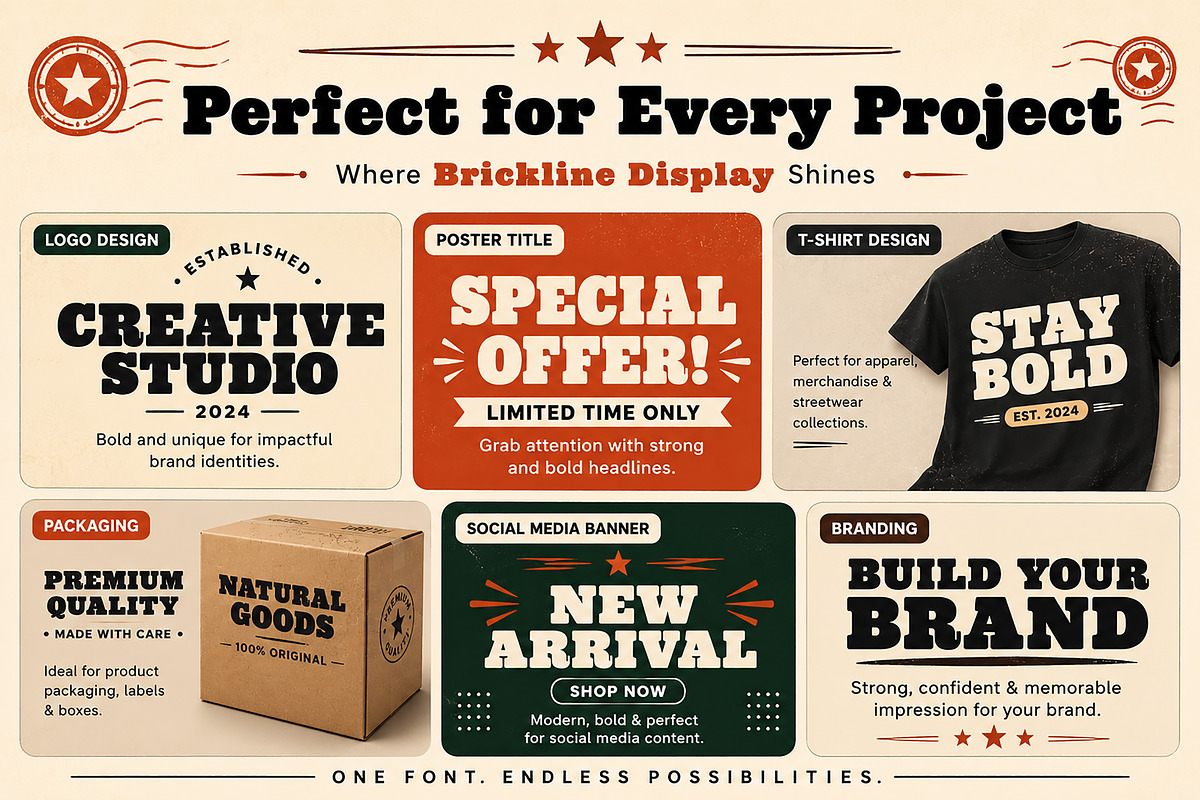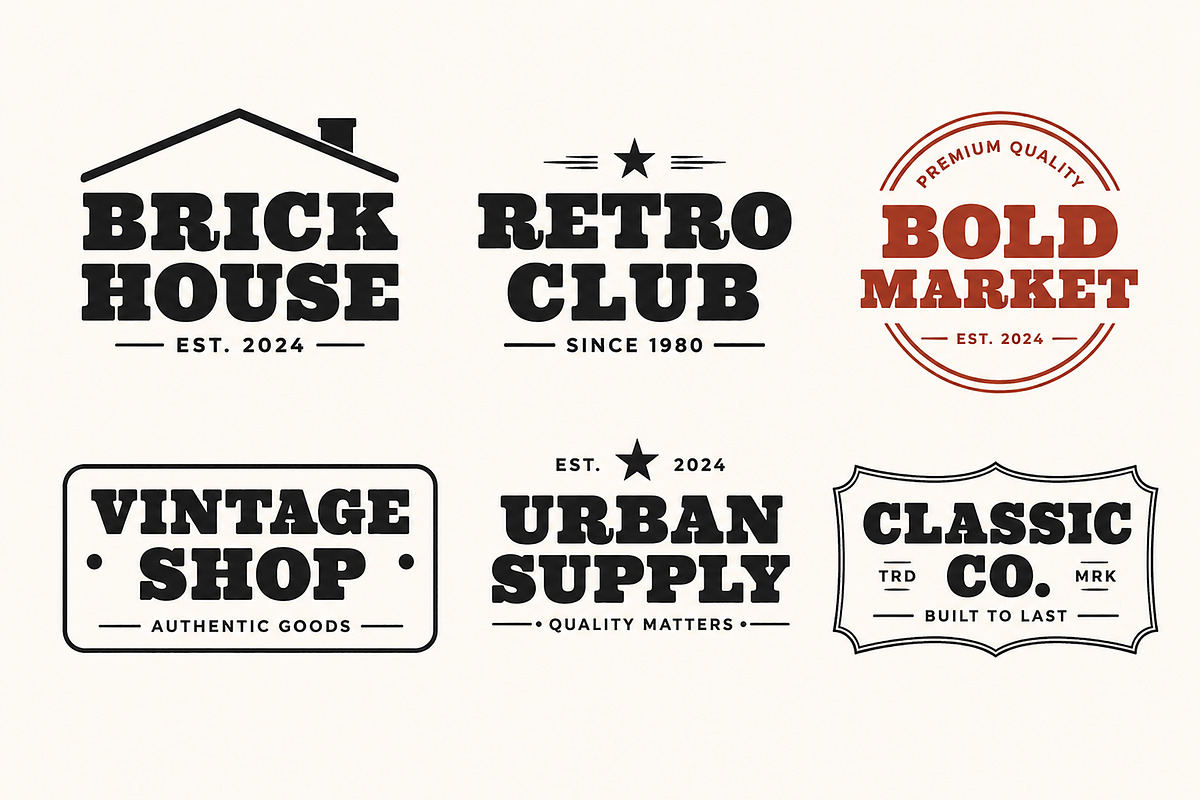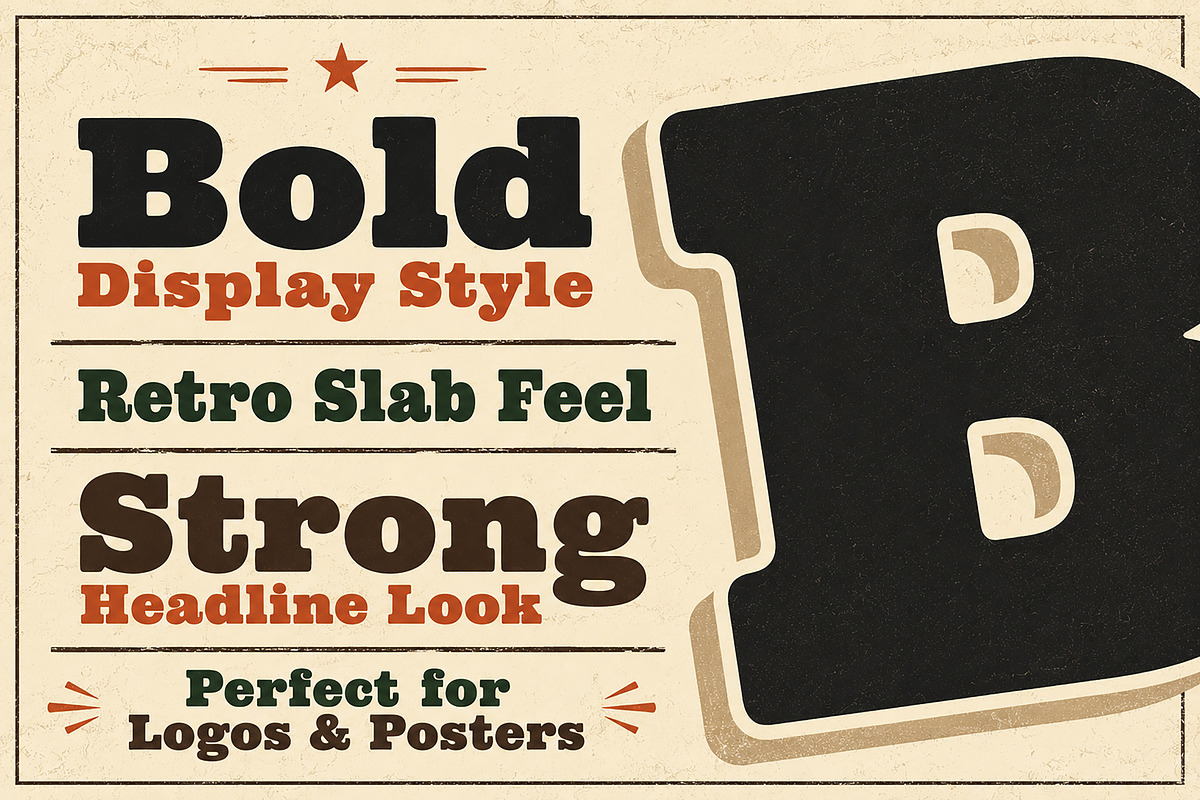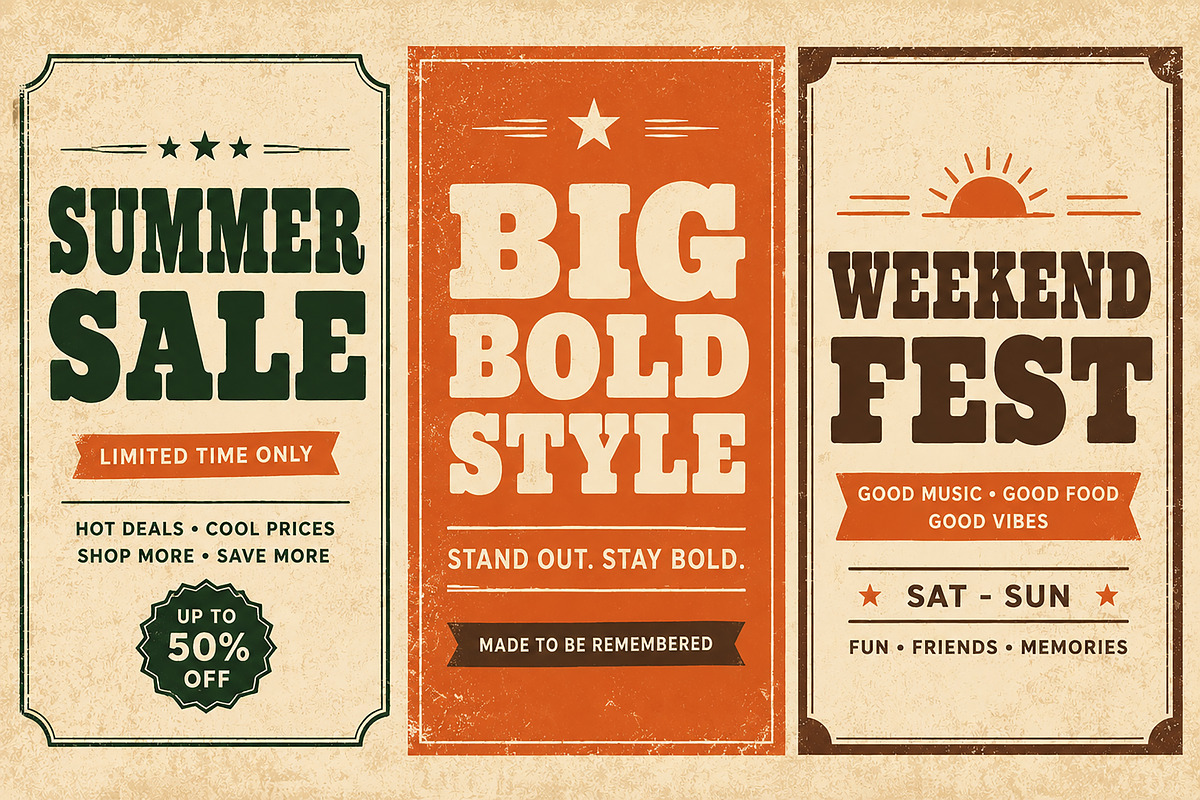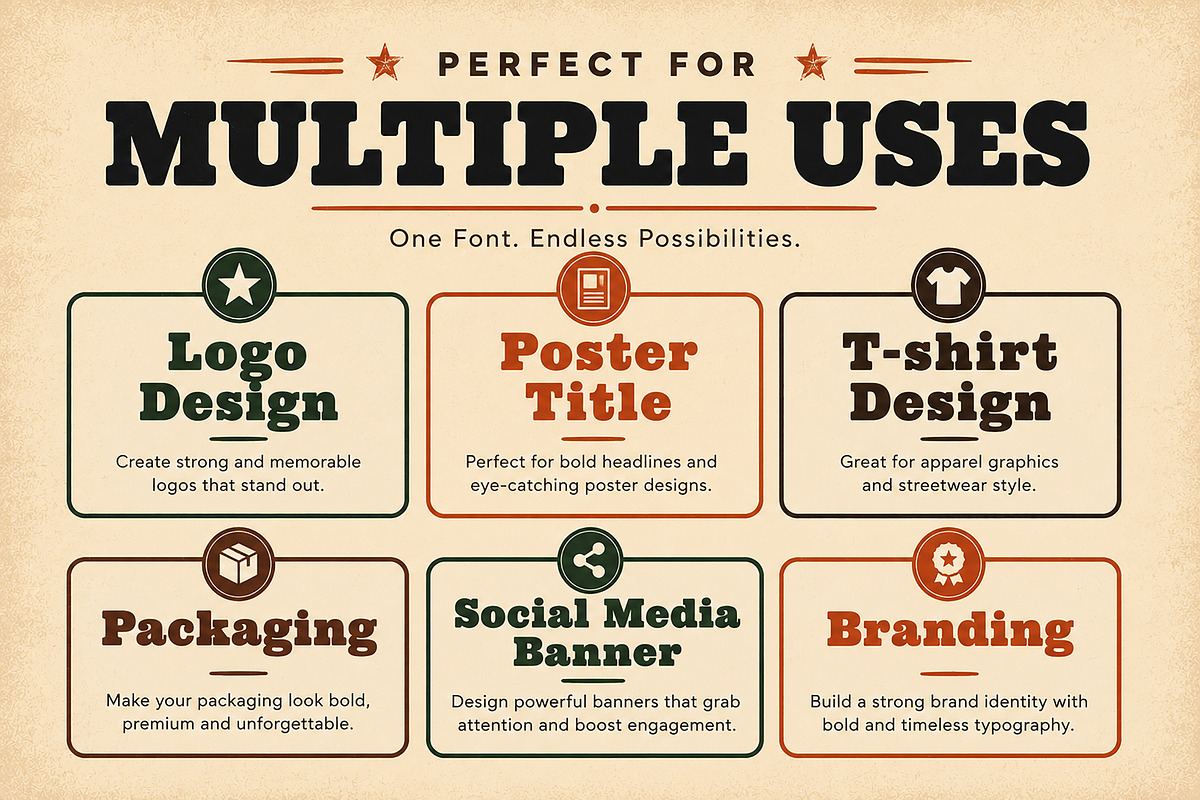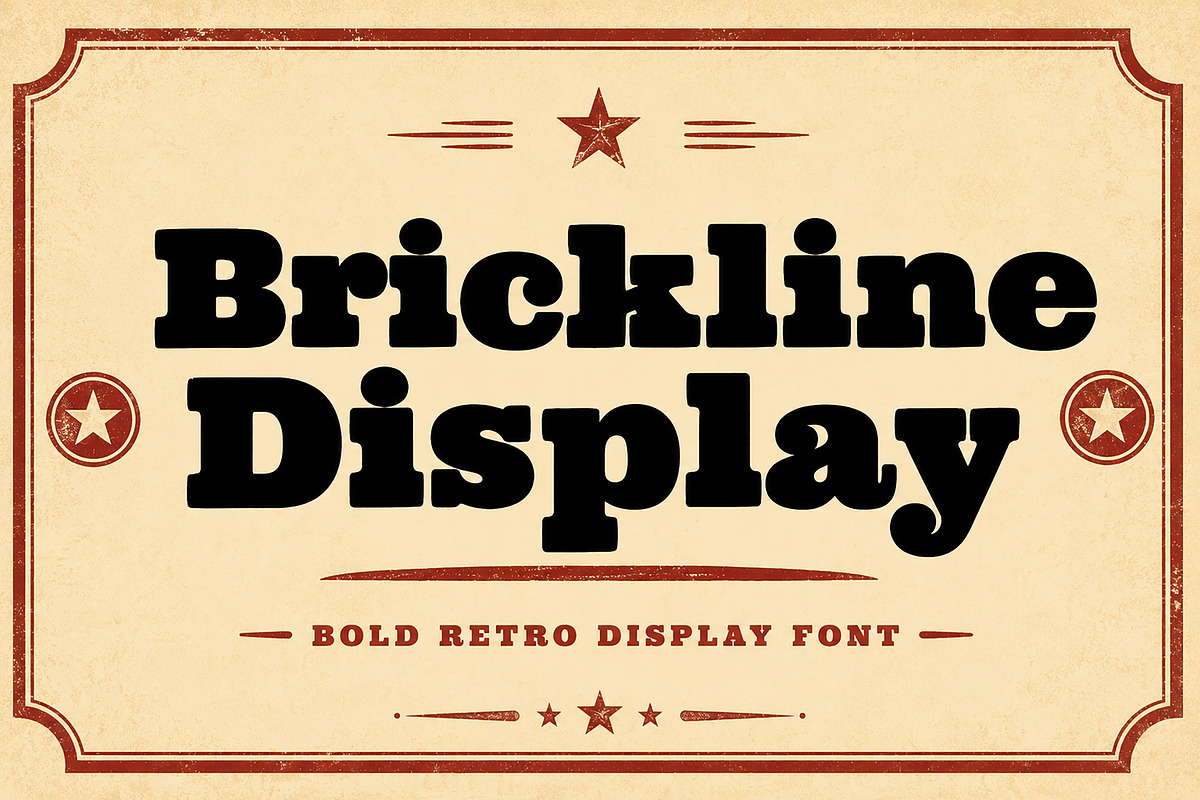
Brickline Display
Bold Retro Display Font
Brickline Display is a bold retro display font designed to make a strong first impression. Inspired by vintage signage, classic Americana, and old-school poster typography, this font delivers a chunky, confident, and timeless look that instantly grabs attention.
Its thick letterforms and bold personality make it perfect for headlines, logos, branding, posters, packaging, merchandise, and social media graphics. Whether you're creating a vintage-inspired brand or a modern retro design, Brickline Display adds character, impact, and style to every project.
Bold Display Typeface
Retro Vintage Style
Clean & Strong Letterforms
High Readability
Perfect for Large Headlines